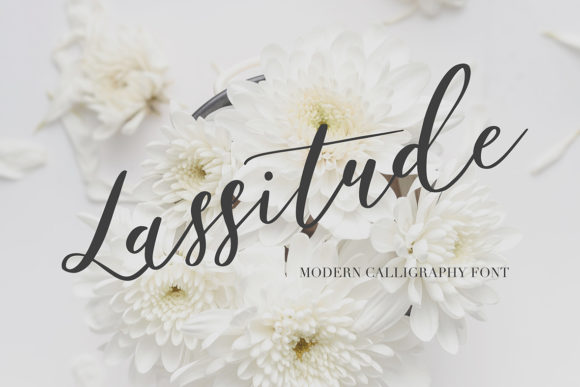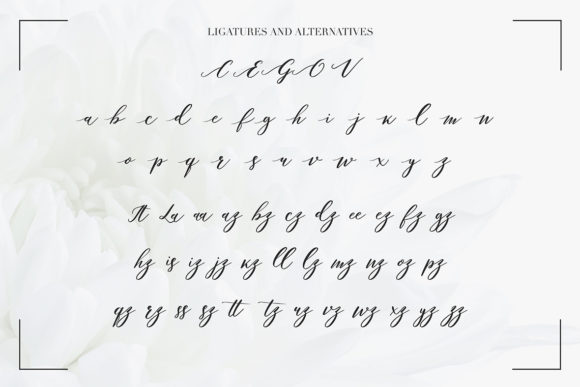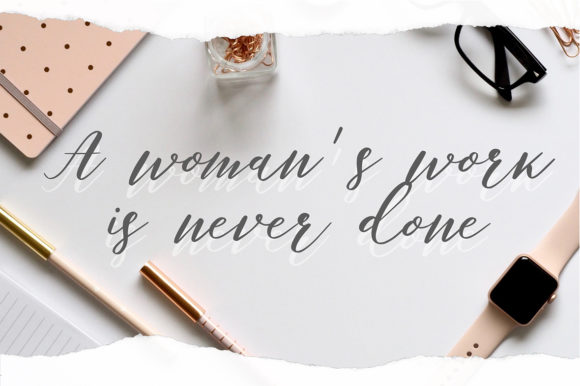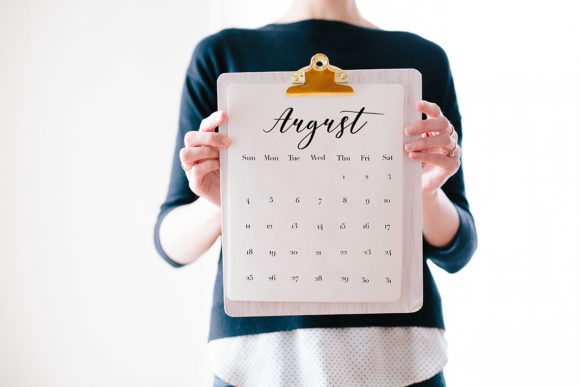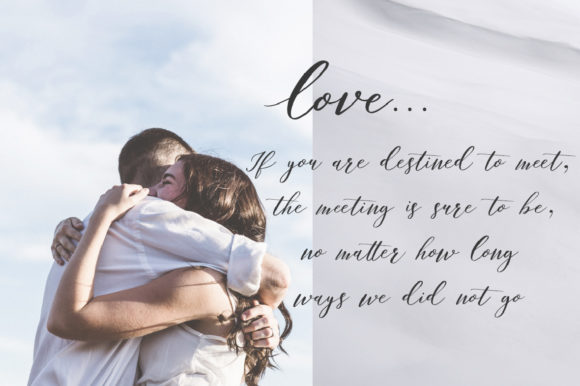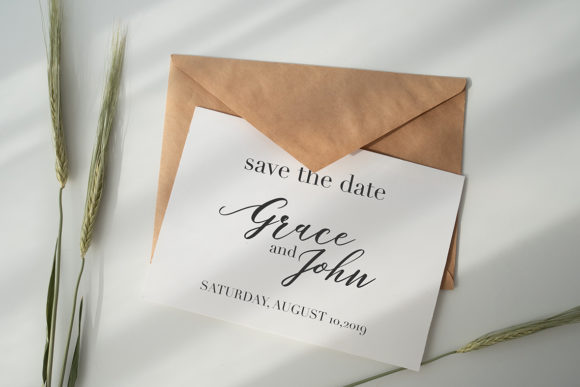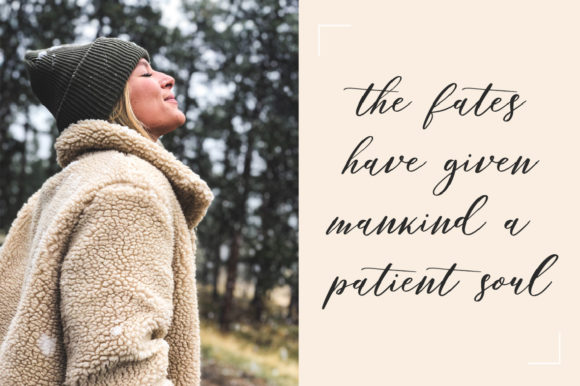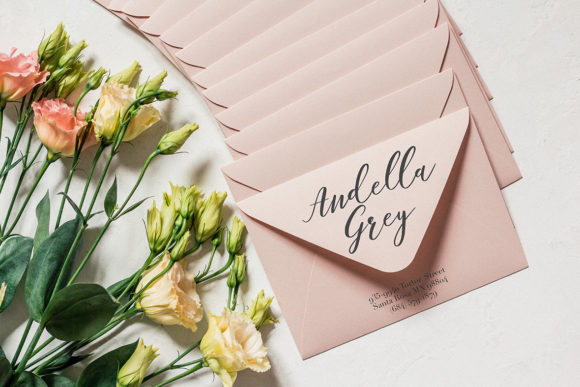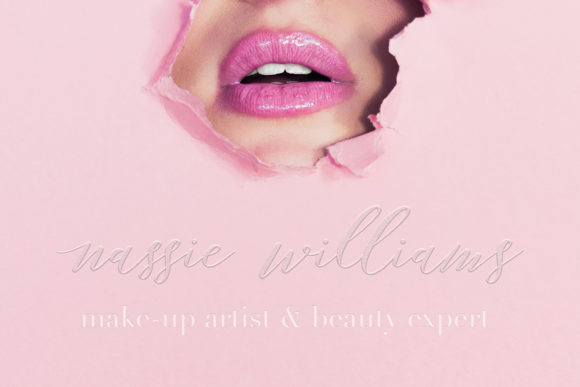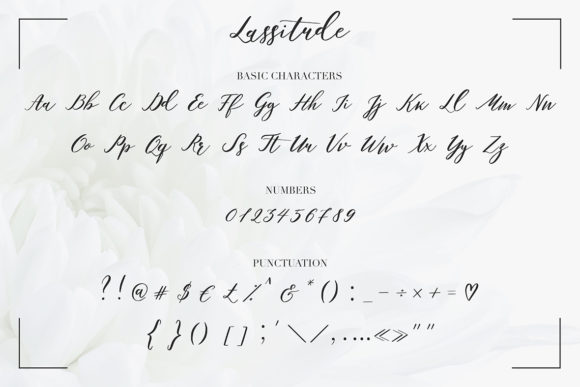
Lassitude Font
About Lassitude Font
Lassitude is a modern font with sophisticated accents. It is ideal for branding, wedding invitations, business cards and any other crafting idea that requires an elegant touch.